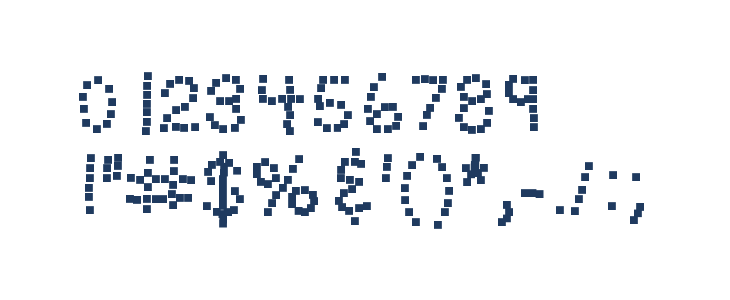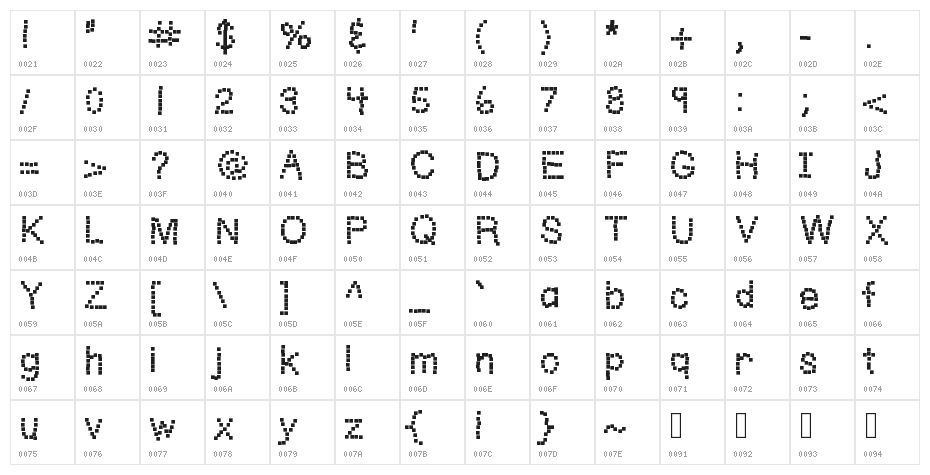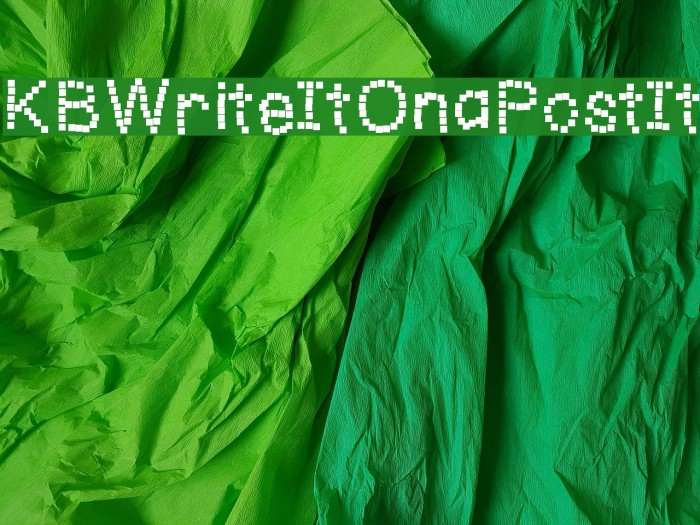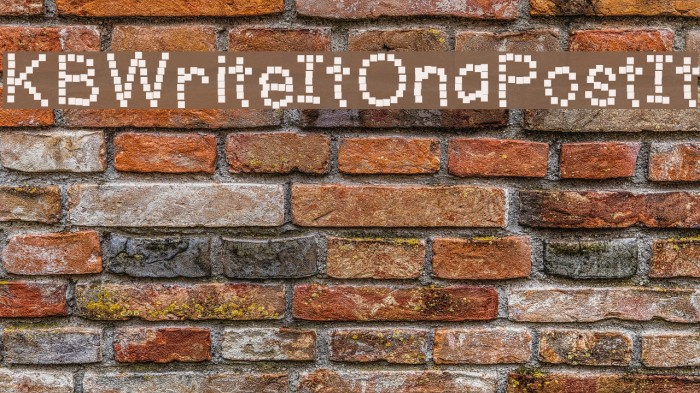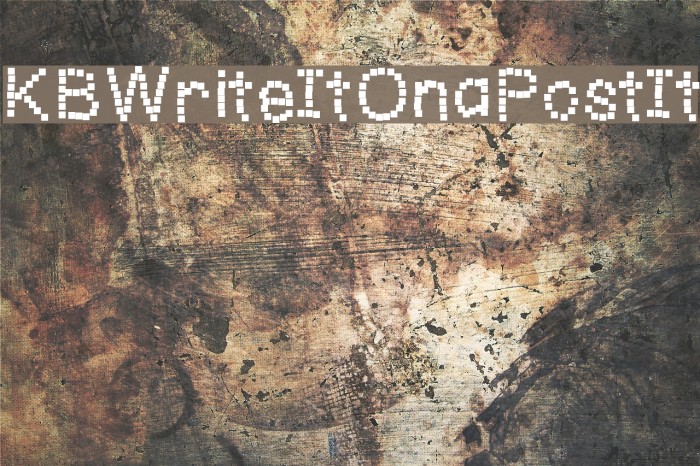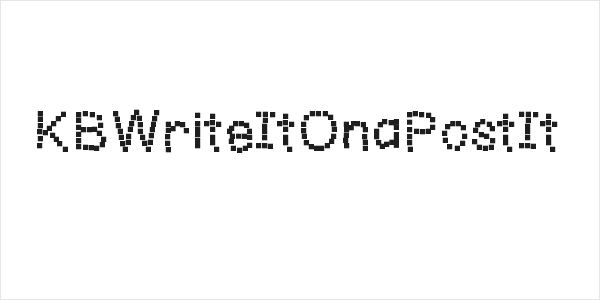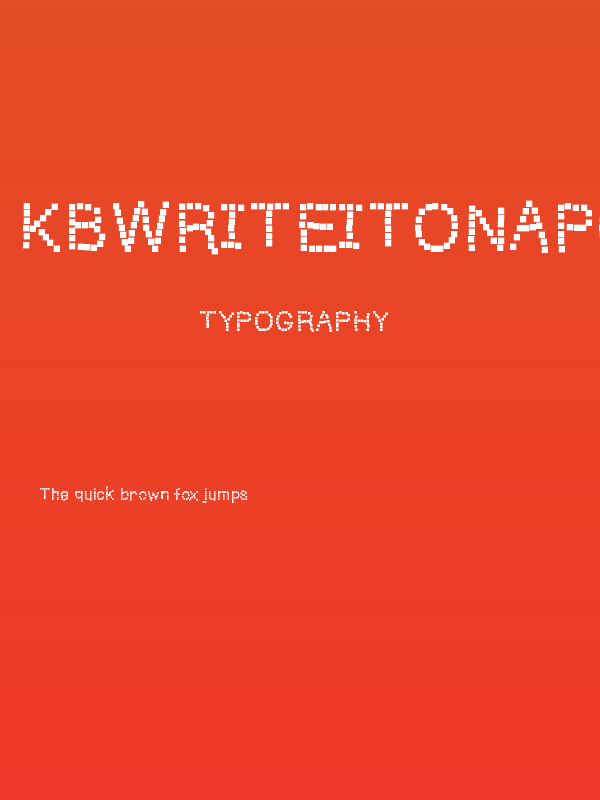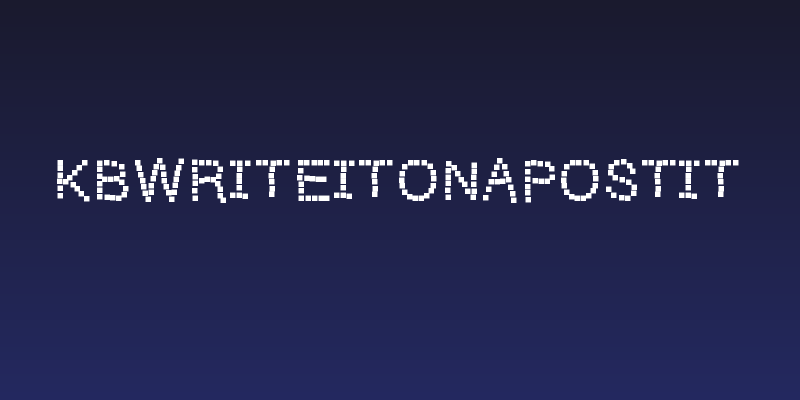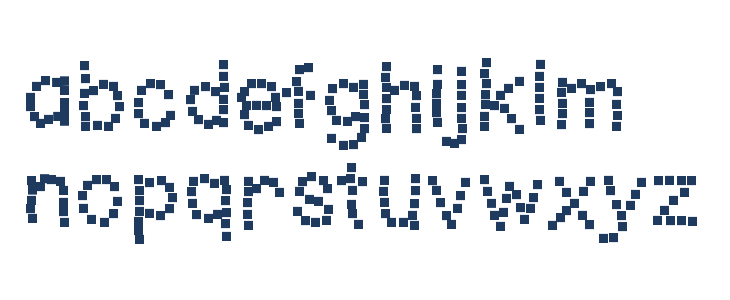
KBWriteItOnaPostIt Font
KBWriteItOnaPostIt Description
This font features a distinctive pixelated design, reminiscent of early digital displays and retro video games. Each character is constructed from a grid of small squares, giving it a blocky and geometric appearance. The uppercase and lowercase letters maintain a consistent height, while the numerals and special characters follow the same pixelated style. This design choice creates a cohesive and uniform look across all characters. The font's simplicity and clarity make it highly legible, even at smaller sizes, while its unique style adds a nostalgic and playful touch.
Overall StyleRetro, Digital
Use CaseLogos, Headlines, Digital Art
Proposed ProjectsIdeal for projects that aim to evoke a sense of nostalgia, such as retro-themed video games, digital art, or vintage-inspired posters. It can also be used in modern digital interfaces to create a unique, standout look.